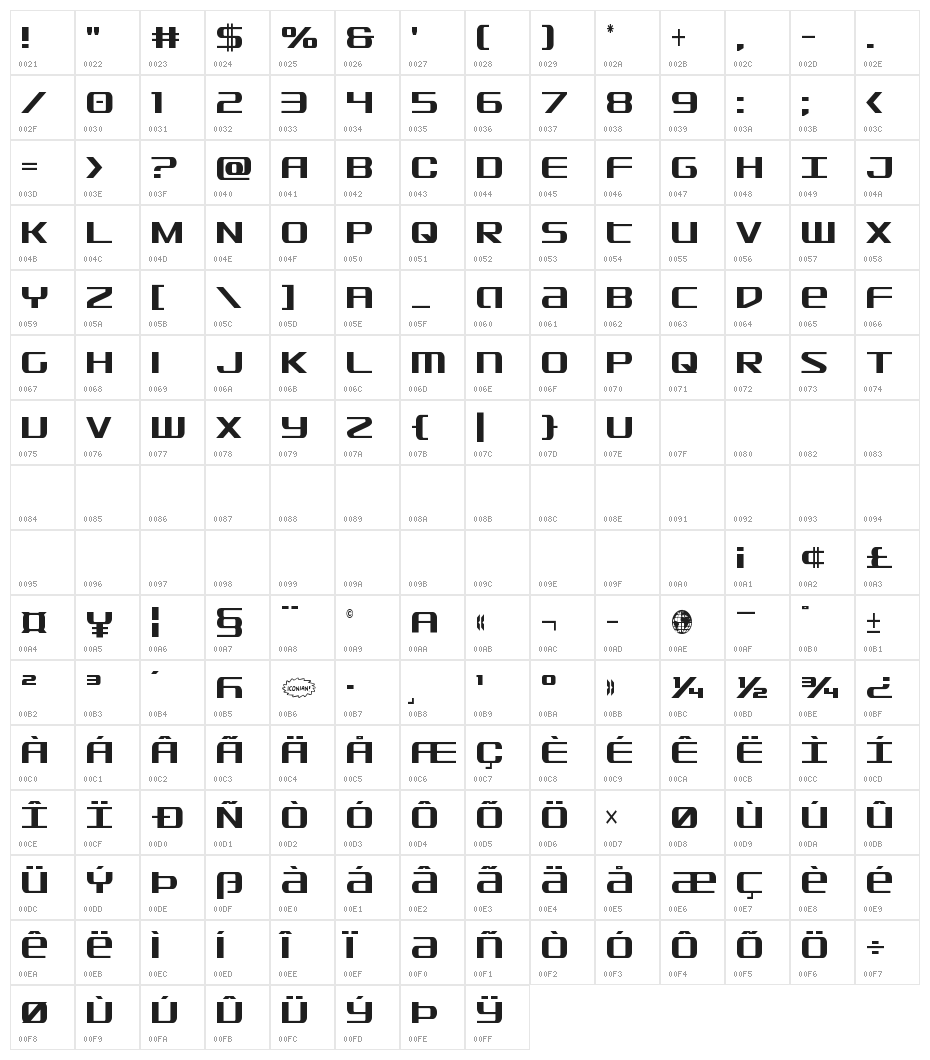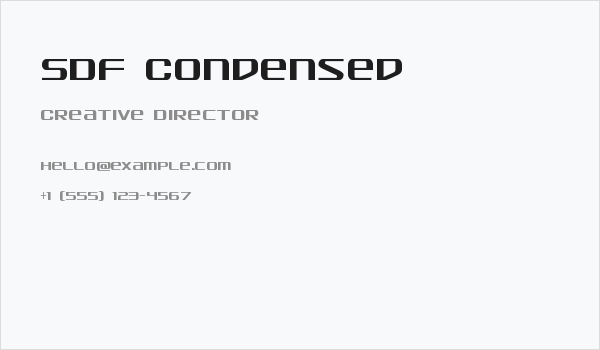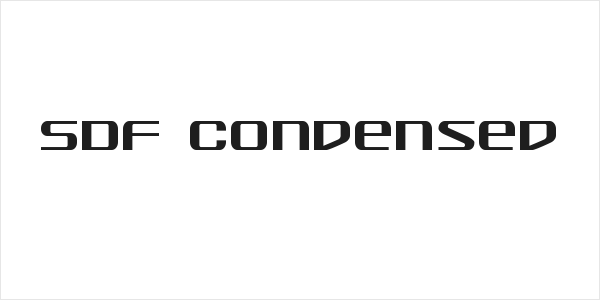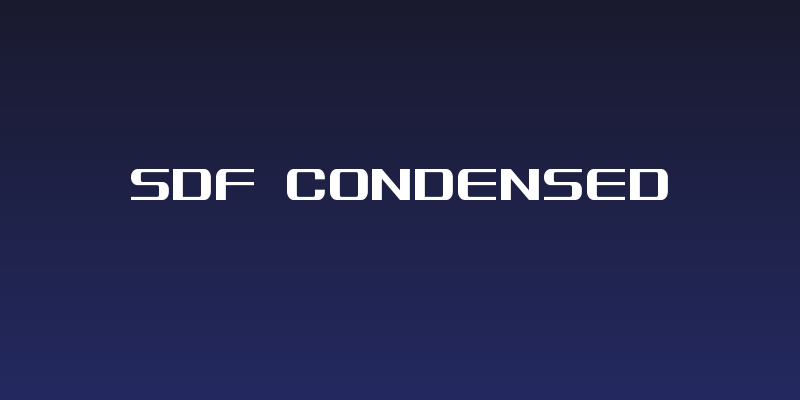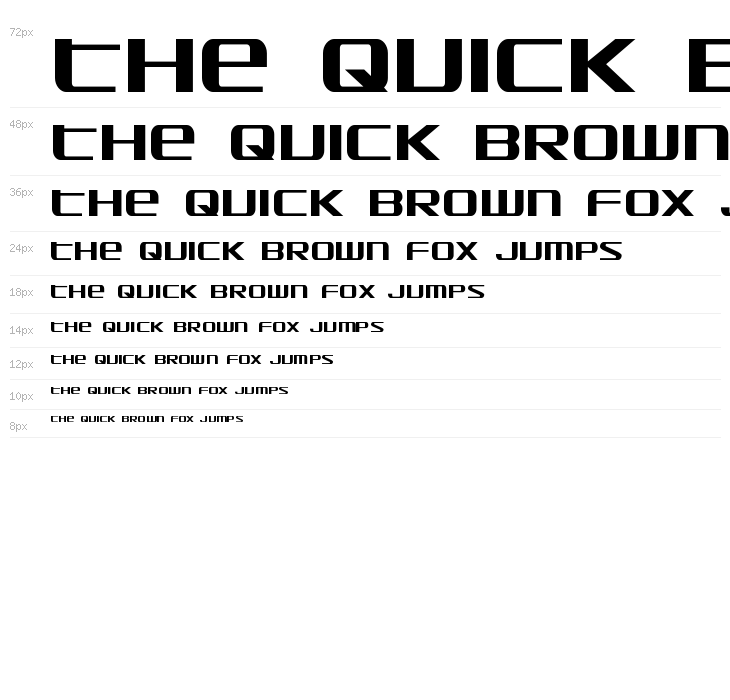
SDF Condensed Font
SDF Condensed Description
This font features a bold and futuristic design with a condensed structure. The characters are geometric and angular, giving it a modern and tech-inspired appearance. The uppercase and lowercase letters maintain a consistent style, with sharp edges and a uniform height that enhances readability. The numerals and special characters follow the same design principles, ensuring a cohesive look across all glyphs. This font's condensed width makes it ideal for space-saving applications while maintaining a strong visual impact.
| Proposed Projects | Ideal for technology branding, sci-fi themed projects, video game interfaces, and modern poster designs. |